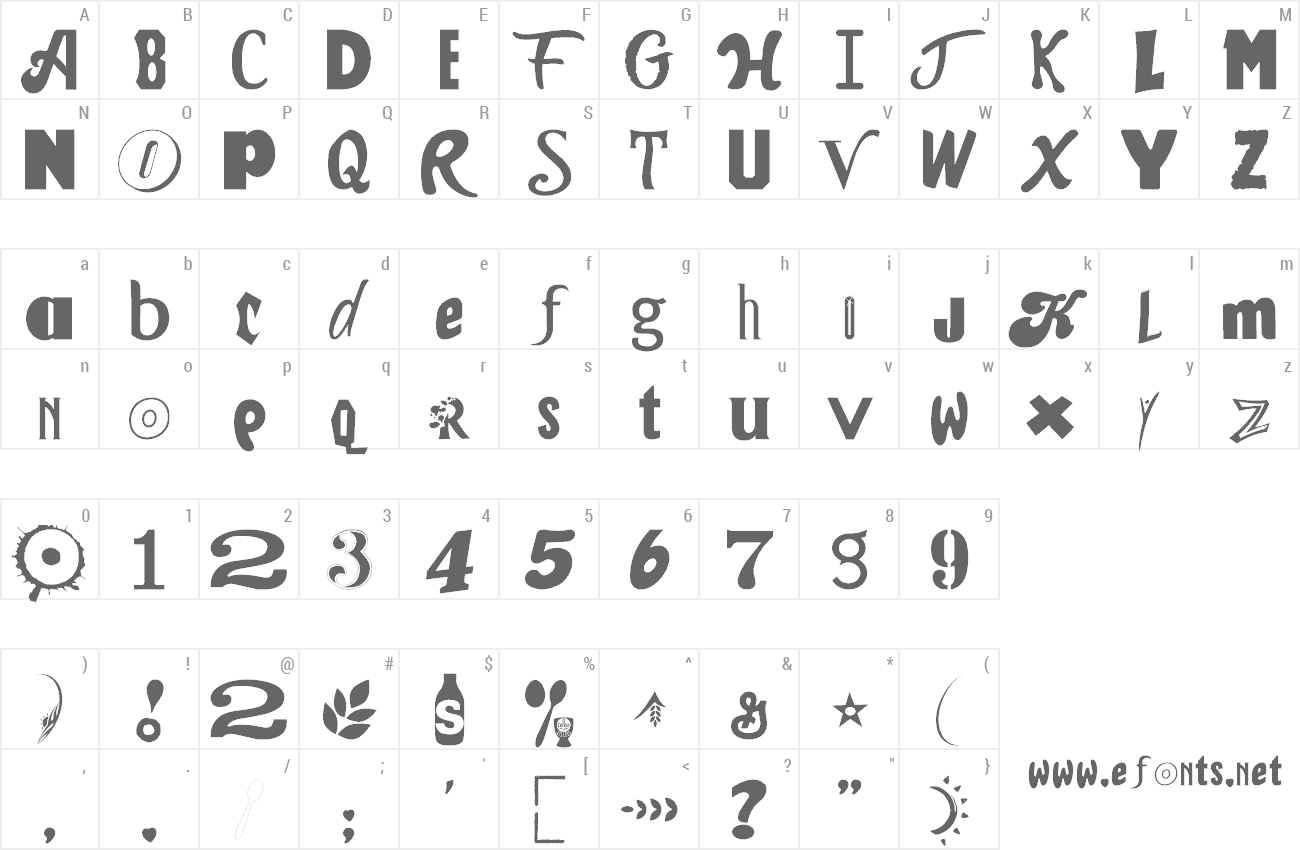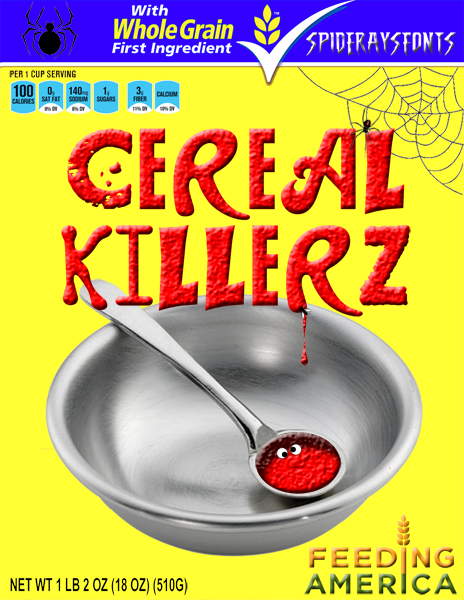
Preview and download Cereal Killerz Font. Created by SpideRaYsfoNtS in Fancy Distorted styles with Donationware license.
Cereal Killerz was an idea that I had one day when I was eating my breakfast I saw potential in the amazing curves and lines on the Cereal boxes that were in front of me. When I investigated I also found the several letters and parts of logos could be transformed into numbers and other characters. This limited,kerned OTF version shows all the letters and numbers is strictly for personal use ONLY. This font is classed as Donationware so after you download it please make a $1 donation to the U.S. Hunger relief charity Feeding America @ http://www.feedingamerica.org We released the fully embeddable version of this typeface commercially on Etsy on the 14th February Valentines Day 2016 to show the love of Cereals from all around the world 5% of each sale will be donated to Feeding America registered charity @ https://www.etsy.com/listing/268367394/cereal-killerz-commercial-font |